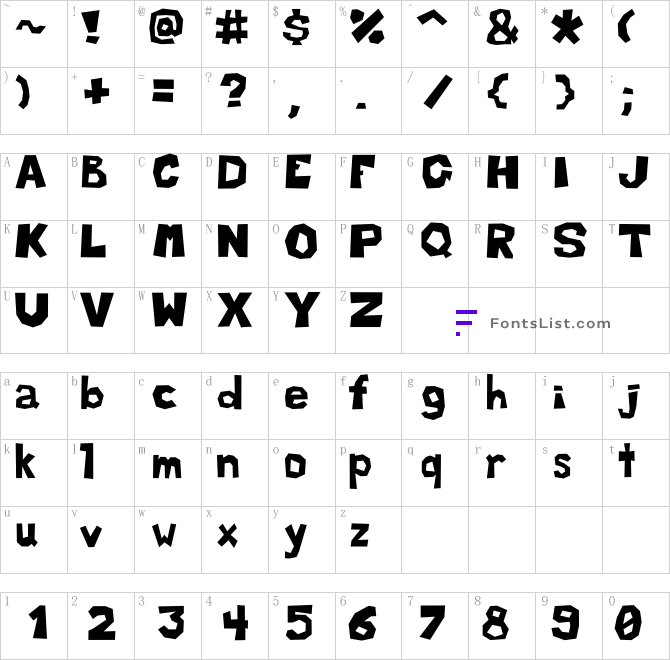
- Full Name:Allegro Cartoon
Allegro-Cartoon.ttf is a very beautiful artistic font, Allegro-Cartoon.ttf is widely used in the design and printing of various books and pictures,Allegro-Cartoon.ttf has a strong visual impact,Allegro-Cartoon.ttf is a commonly used font in newspapers, magazines and books, and is used in posters, e-commerce Poster design, store design, logo design, font design and other fields.Allegro-Cartoon.